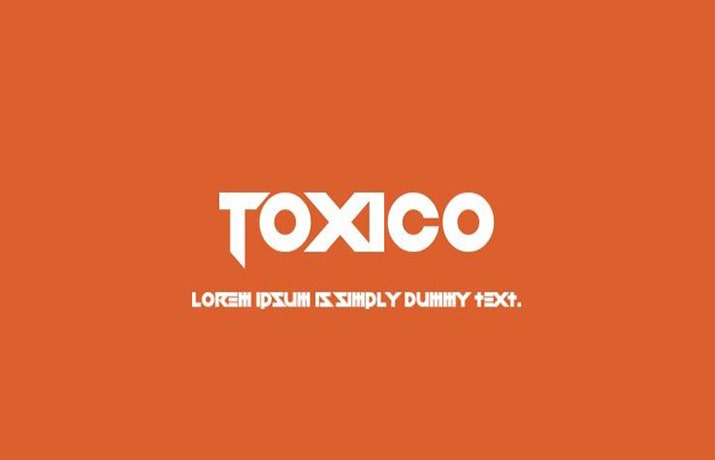
Toxico Font is a modern and techno-themed font that is perfect for designing bold titles and headings. It’s especially suitable for big title designs for posters and flyers.
Chequered Ink a most popular type of foundry took the charge of creating and sharing it for the first time in 2016.
It includes upper and lower case, sexy glyphs, numerals, ligatures as well as punctuation. Due to its attractive appearance, many designers look forward to using it in their daily work.
You can craft amazing logos, headers, covers, posters, business cards, emblems, branding, game titles, game graphics, posters, labels, photography, graphic arrangements, banner designs, as well as many other awesome things.
This font family comes in a single style that has more than one hundred characters. With wide language support, this clean font has got a versatile and readable text form.